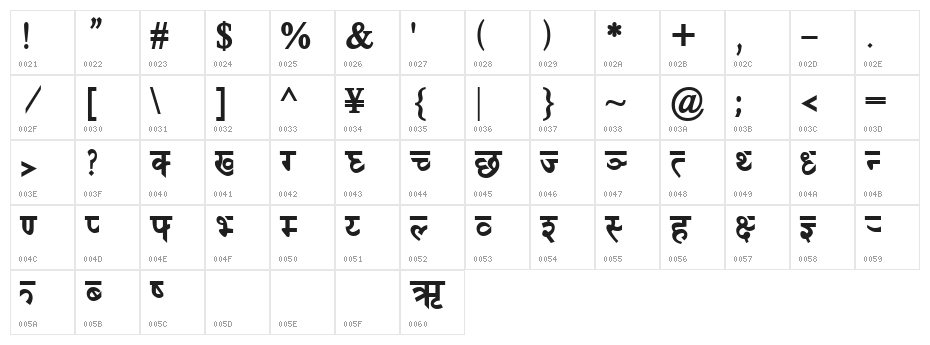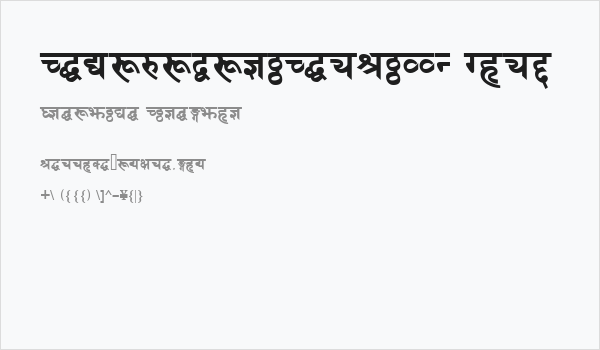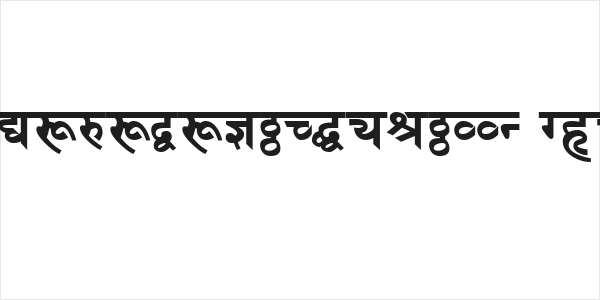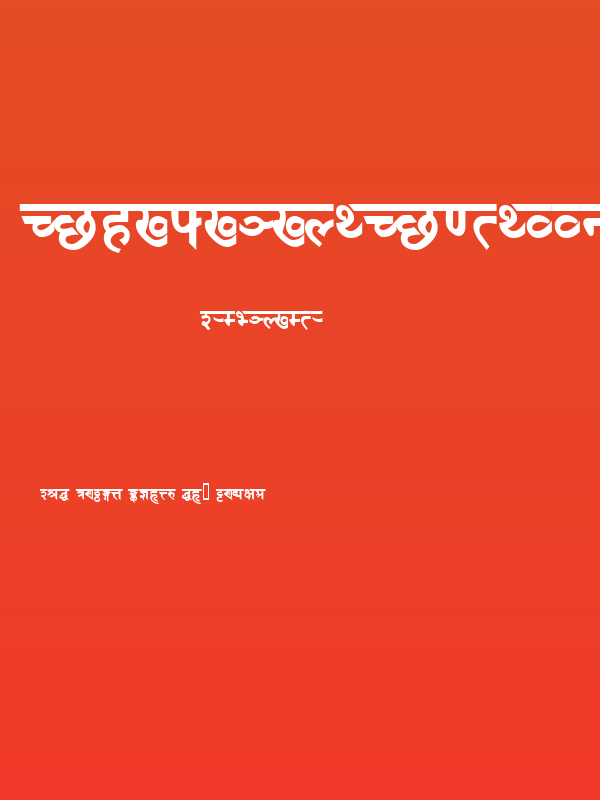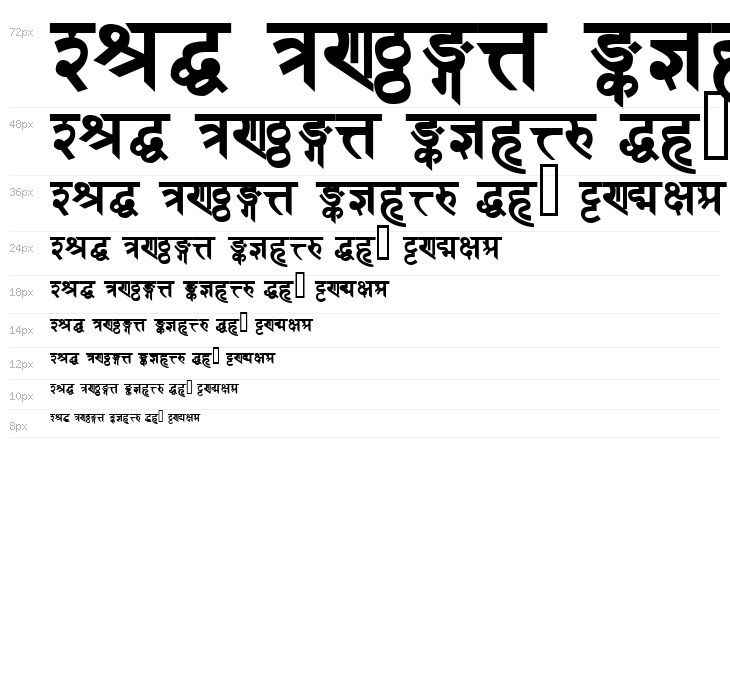
DevanagariDelhiSSK Bold Font
DevanagariDelhiSSK Bold Description
This font features a bold and striking design, characterized by its thick strokes and strong presence. It is a Devanagari script with a modern twist, offering a clean and structured appearance. The characters are well-defined with sharp edges and a consistent weight throughout. The font maintains a balanced proportion, making it suitable for both display and text purposes. Its bold nature ensures high readability and impact, making it ideal for headlines and titles. The spacing between characters is normal, providing a harmonious flow of text. This font's style is both contemporary and versatile, fitting well into various design contexts.